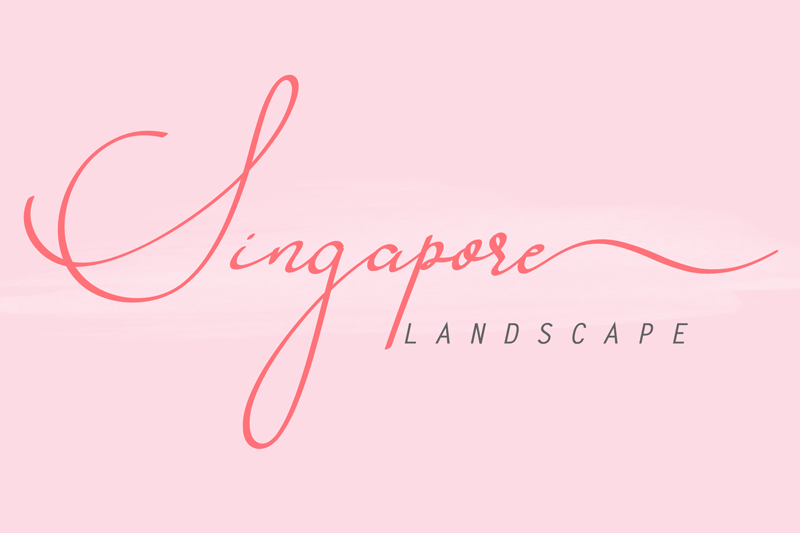
Vemina Script Font
Vemina Is Handwritten Monoline Script font which is make with natural movement, elegant for signature style and any other needed.
Vemina Handwritten is suitable for any branding projects, logo, wedding designs, social media posts, product packaging, product designs, advertisements, label, photography, watermark, invitation, stationery and any projects that need handwriting taste looklike.
• Standard glyphs
• Begin and Ending Swash
• Ligature
• Multilingual support for; ä ö ü Ä Ö Ü ß ¿ ¡